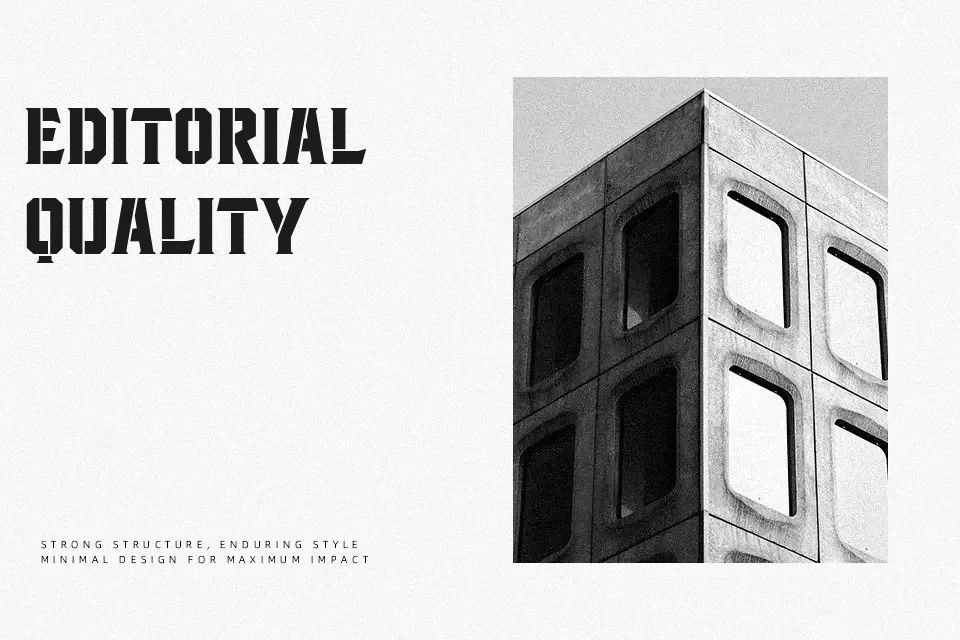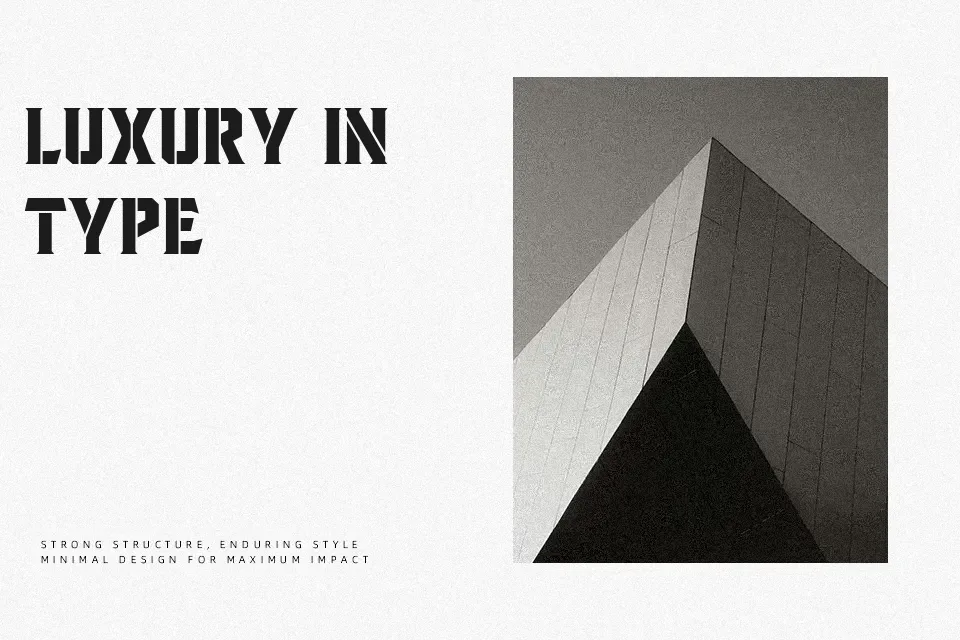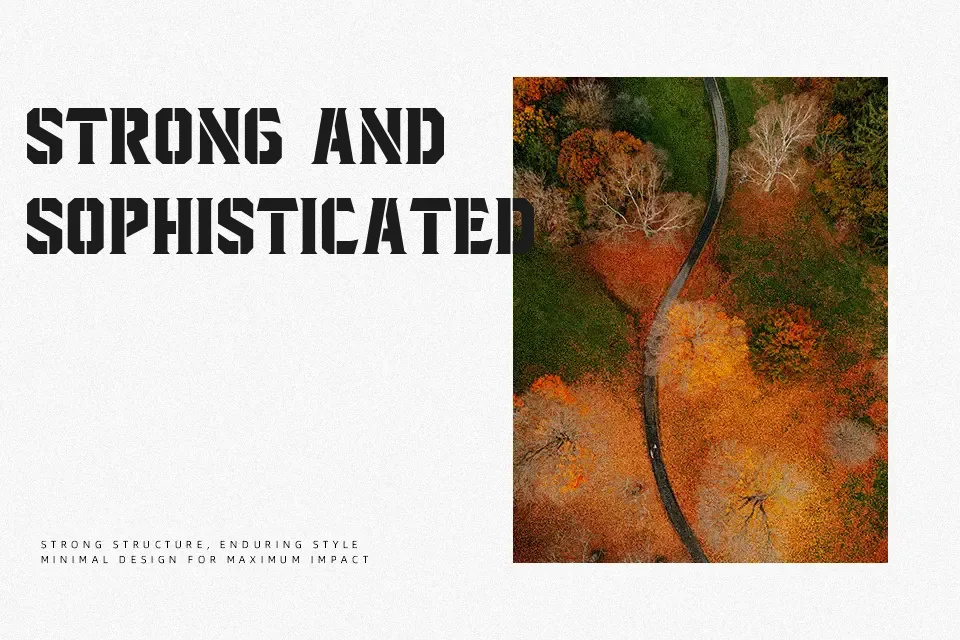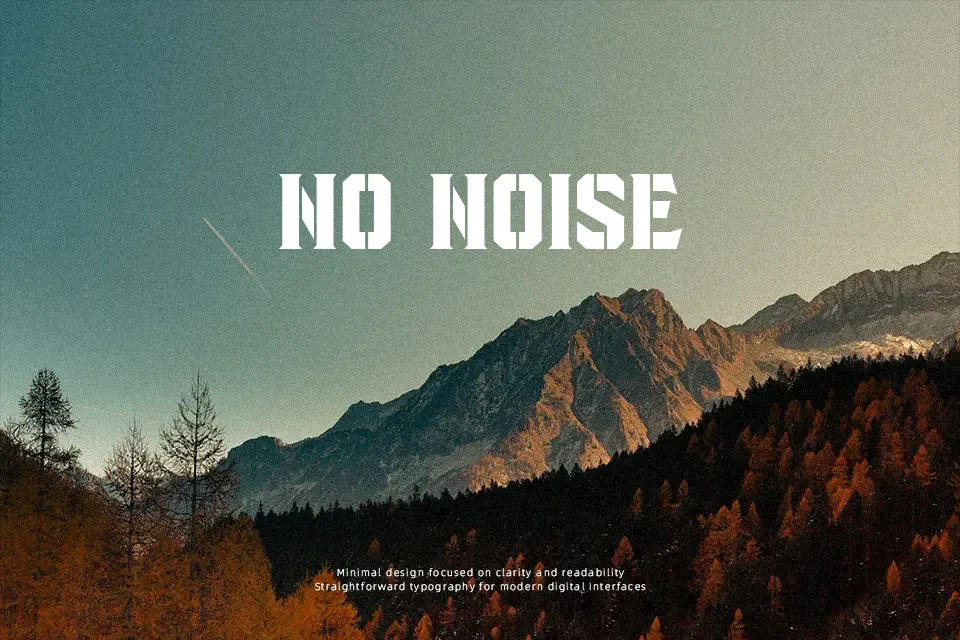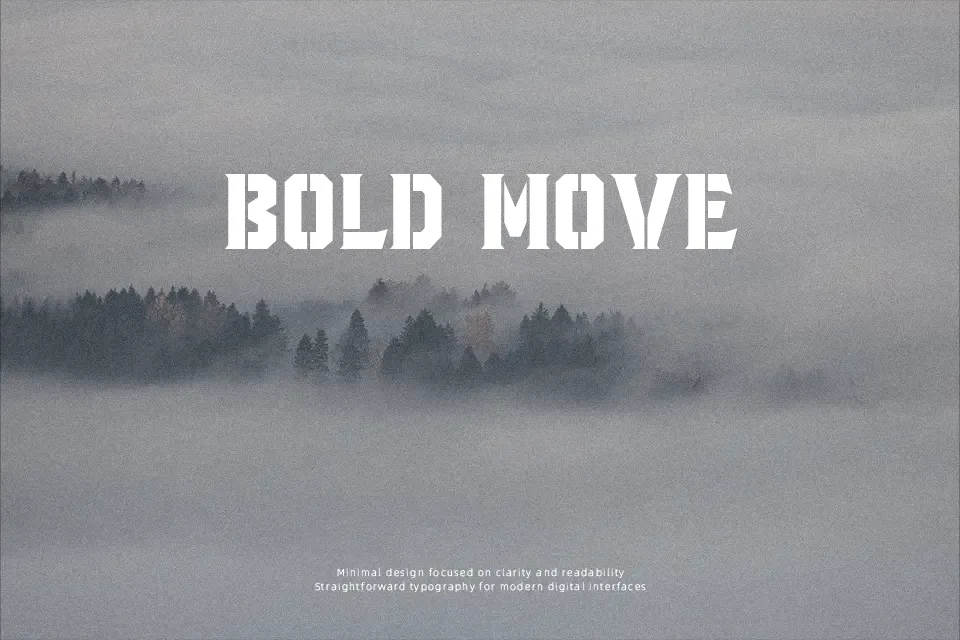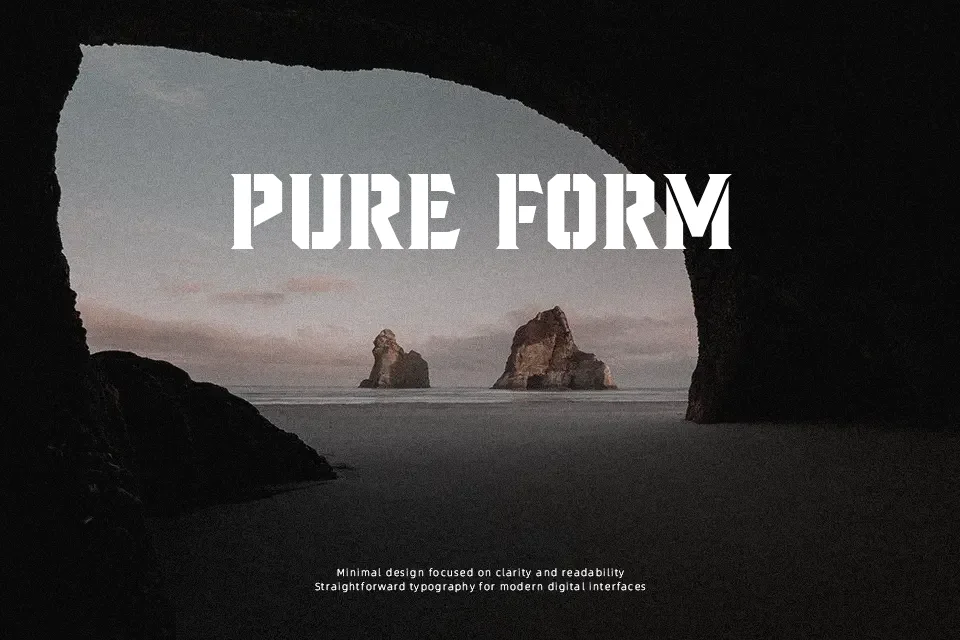
Blacktroops Stencil Font
Designed by Mikrojihad Typography
Blacktroops Stencil is an intensely heavy, all-caps display typeface characterized by its rigid geometric structure, massive strokes, and aggressive architectural cutouts. The monolithic letterforms carry a distinctly masculine, industrial atmosphere, relying on tight spacing and extreme visual weight to dominate any layout. Unlike traditional, highly legible stencils, this raw design prioritizes an imposing aesthetic over quick readability. The font excels when utilized for striking military-themed game titles, extreme sports graphics, or bold streetwear branding where a rebellious, urban tone is necessary. However, its sheer thickness and reduced negative space make it a poor candidate for long-form paragraphs or small-scale print materials, as the heavy characters quickly bleed together and lose clarity at reduced dimensions.
– Military-themed video game titles
– Aggressive extreme sports branding
– High-impact industrial poster designs
– Extended body text or dense paragraphs
– Small-scale mobile interface elements
– Elegant or minimalist corporate identities
Perfect for branding, gaming, and headline, with a bold and display style.